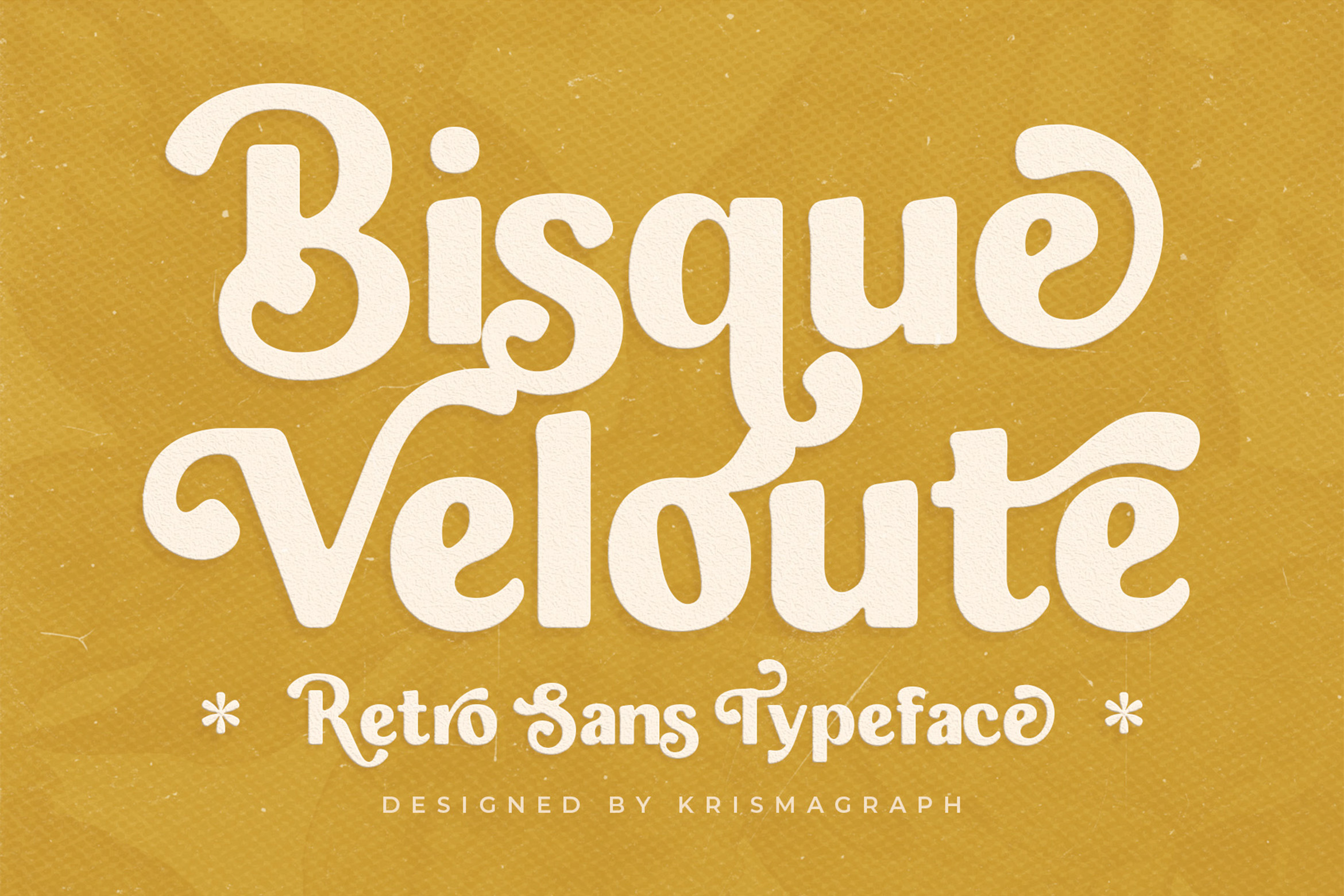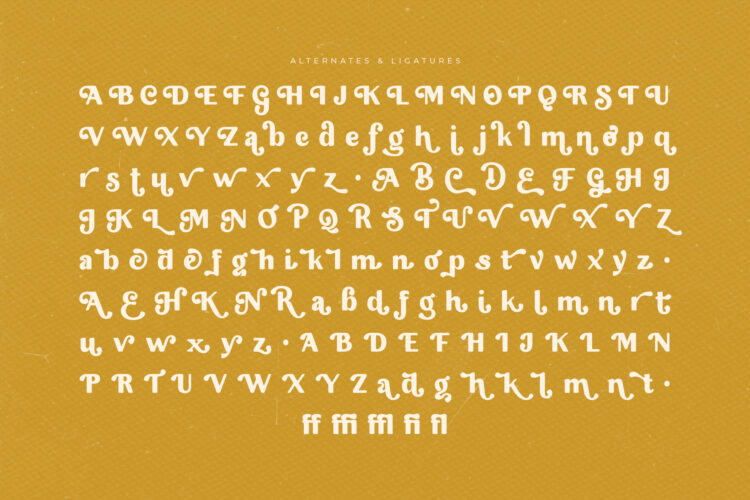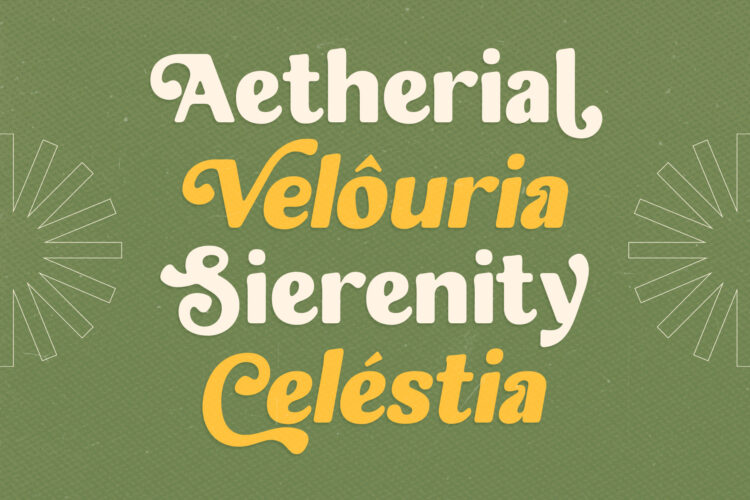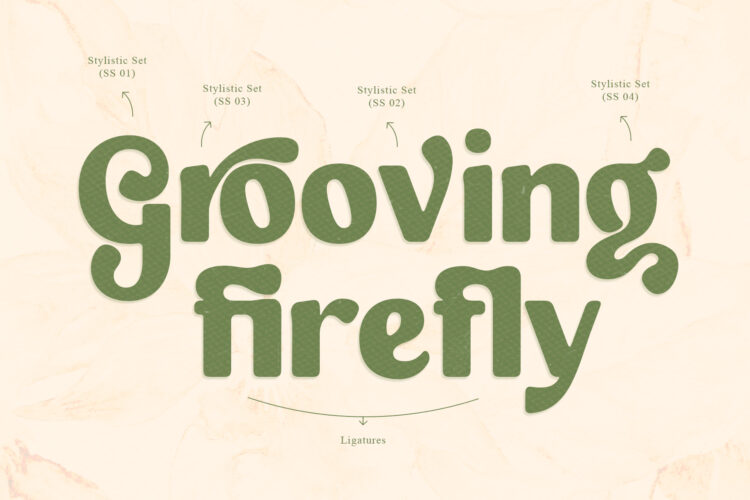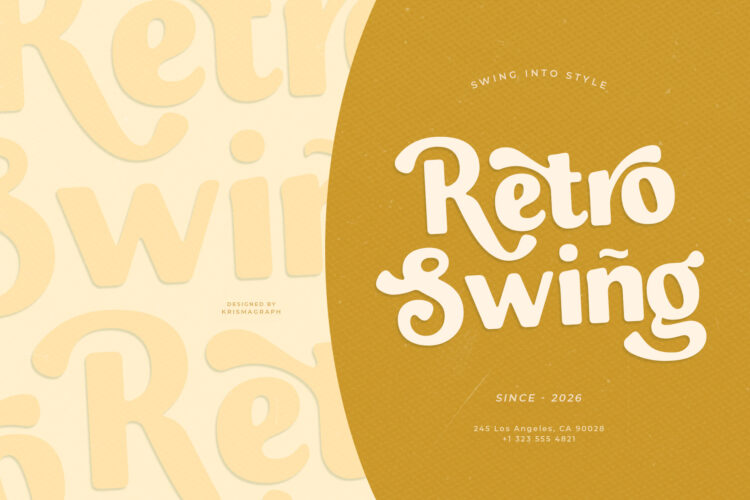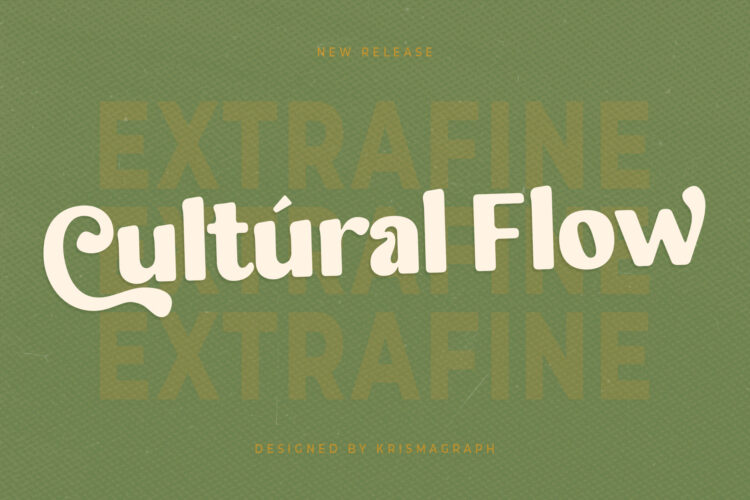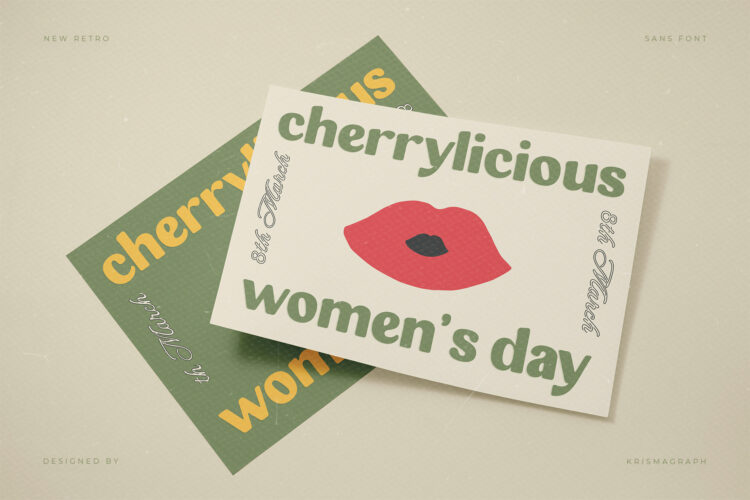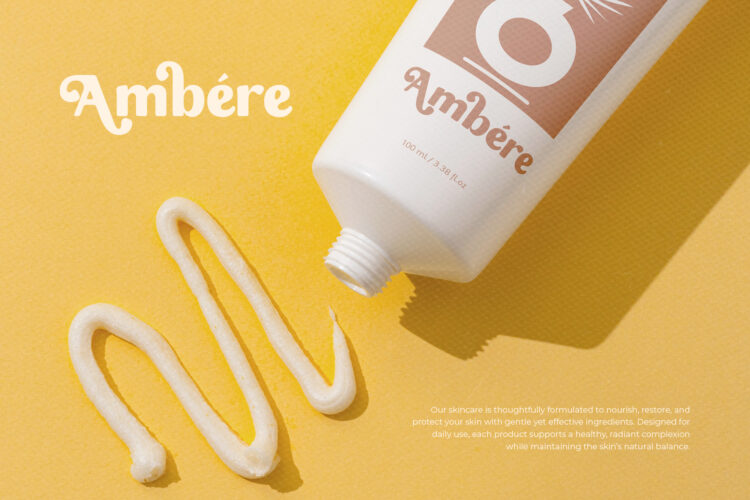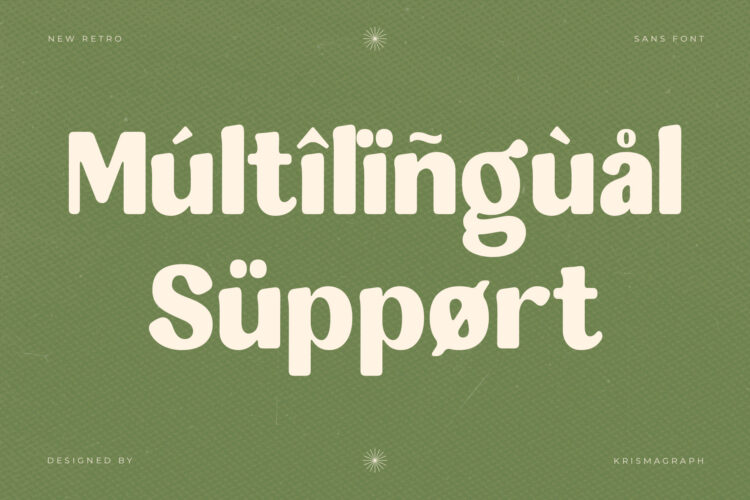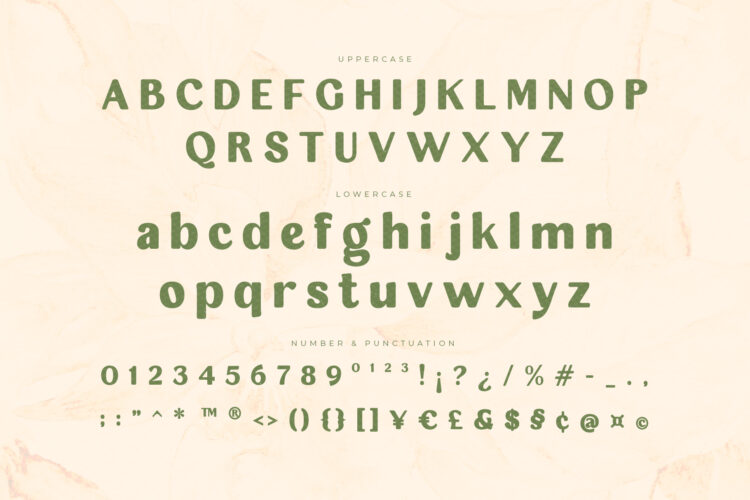
Bisque Velouté is a bold, joyful retro sans typeface that channels the groovy spirit of the 1960s and 70s with a distinctly modern sensibility. Its thick, fluid letterforms — complete with swirling terminals and bubbly curves — create an unmistakably warm and playful personality that stops the scroll and commands the shelf.
Perfect for food and beverage branding, artisan product packaging, vintage-inspired poster design, music festivals, café menus, street culture campaigns, and any creative project that demands personality over convention. Bisque Velouté pairs beautifully with clean sans-serifs to create vibrant typographic compositions.
This is the font for brands that want to be remembered — because playing it safe has never been this delicious.
Display Retro Sans style Groovy swirling letterforms Multilingual support Ideal for: food & drink, branding, packaging, posters, music events, café & restaurant identity
– Numbers, fractions
– Punctuation and symbols
– Alternates
– Ligatures
– Multilingual support
Bisque Velouté – Retro Font